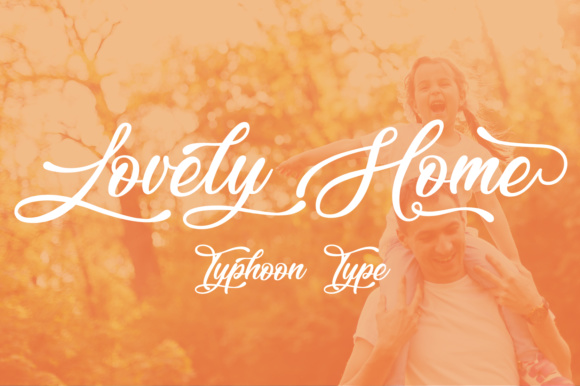
Lovely Home Font
About Lovely Home Font
Lovely Home is a heartwarming cursive font, perfect for giving your designs a warm and inviting feel. This cursive font looks great in print projects, and can give your work a luxurious yet relatable feel.